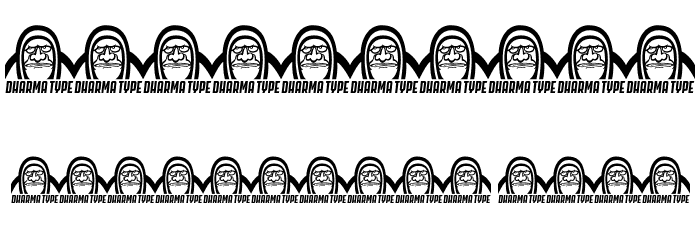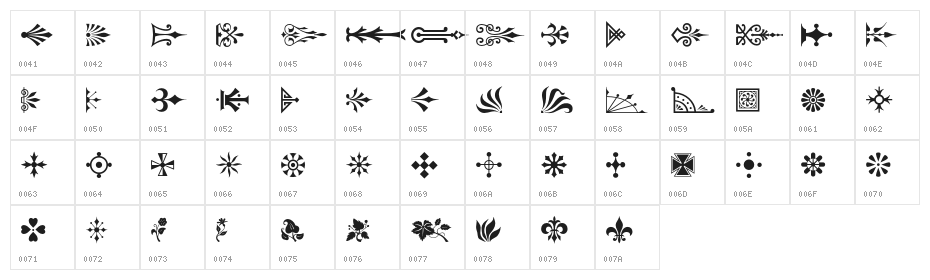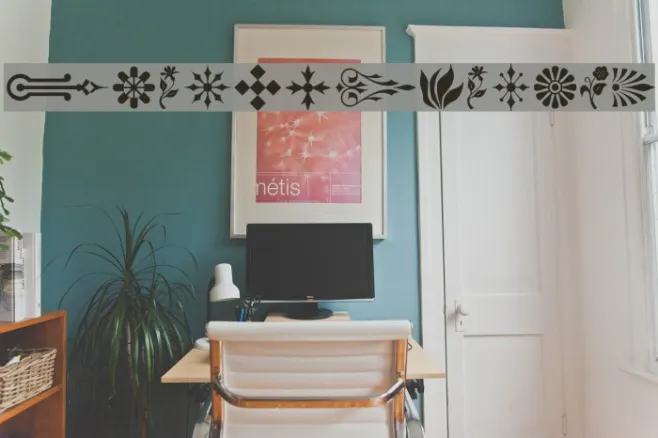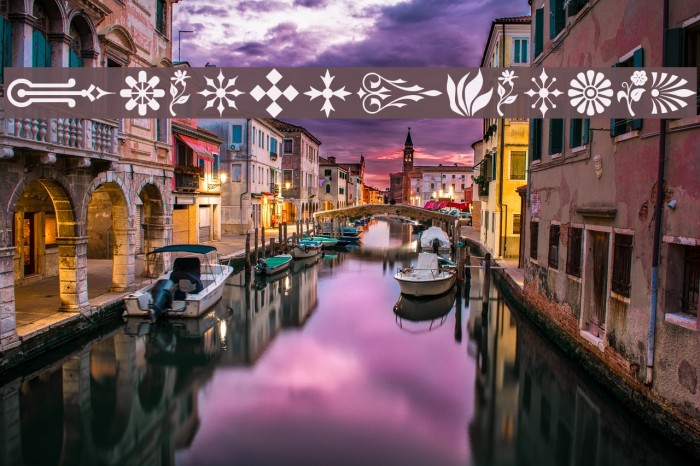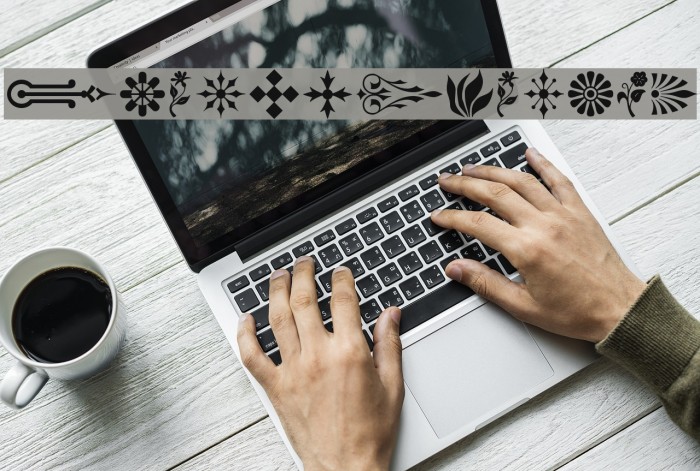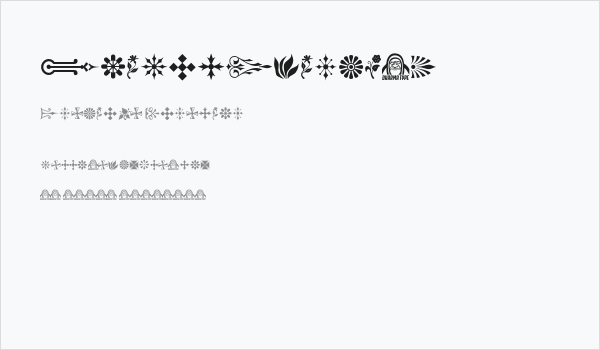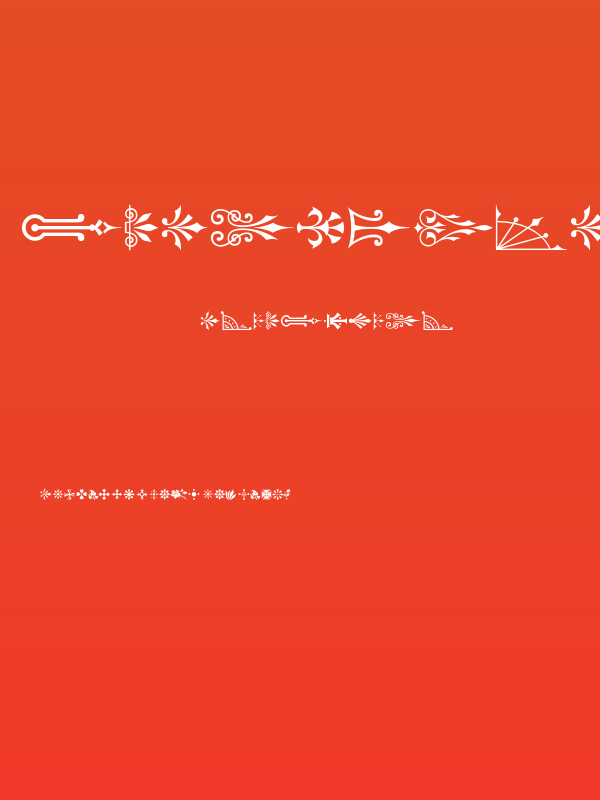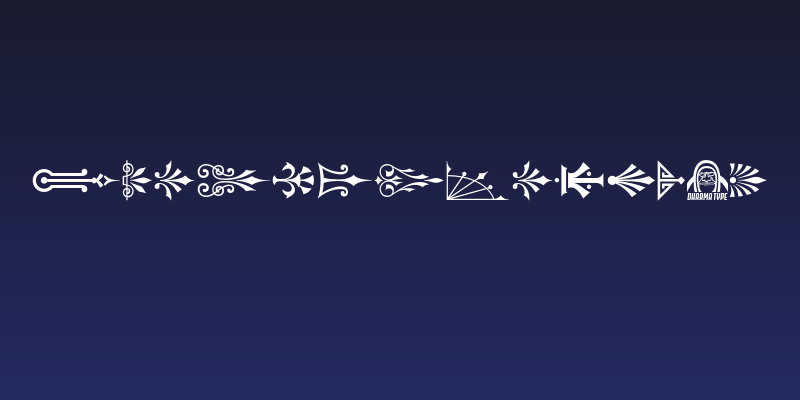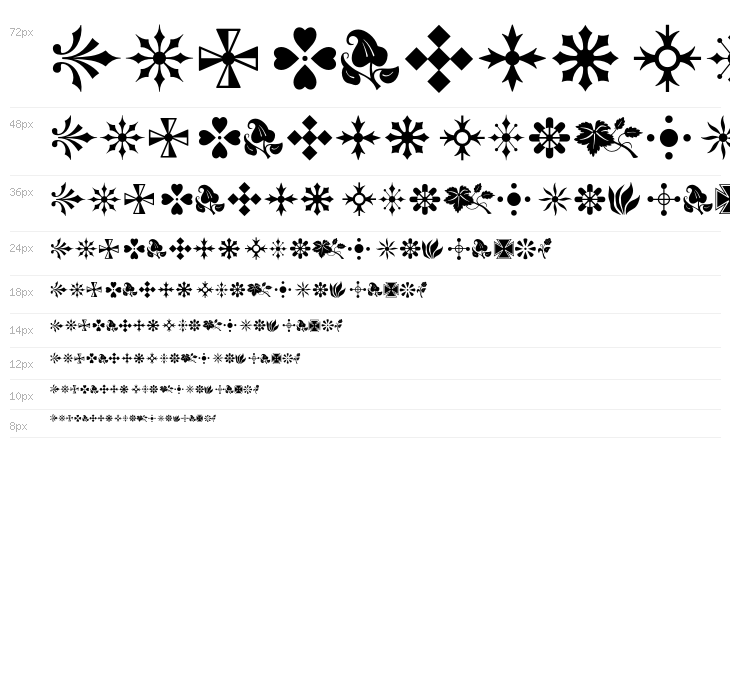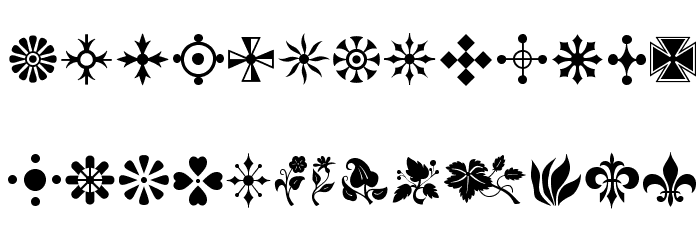
GothicExtras-B Font
GothicExtras-B Description
A decorative dingbat and ornament set featuring intricate gothic-inspired motifs, floral elements, geometric shapes, and illustrated borders with stylized figures and text. The designs are highly detailed, bold, and intended for embellishment rather than standard text use.
| Overall Style | Decorative, Gothic, Vintage |
| Use Case | Borders, embellishments, graphic accents, themed branding. |
| Proposed Projects | Book covers, invitations, certificates, decorative borders, posters, branding for vintage or gothic themes. |